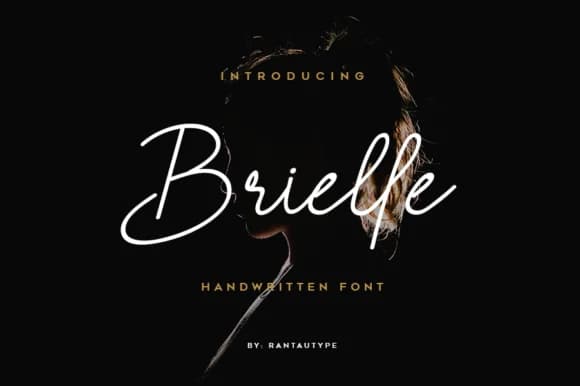
Brielle, designed by RantauType, is a contemporary script typeface that captures an energetic, hand-drawn quality through flowing letterforms rendered with confident boldness and distinctive personality. The letters connect with casual flair and natural movement, creating an approachable aesthetic that deliberately sidesteps the artificial precision found in traditional formal scripts.
This font excels across projects that genuinely need warmth and visual personality to feel authentic and inviting. Wedding invitation suites benefit from Brielle's spirited letterforms and human touch, while wine bottle labels and craft beverage branding gain instant authenticity from the hand-lettered quality visible in every letterform. Greeting card designs feel at home with this typeface, as do boutique product packaging projects for candles, artisan skincare, or small-batch goods where approachability genuinely matters. Social media graphics and brand identity applications also suit it, particularly when you want to capture attention with distinctive character without feeling overwrought or heavy-handed.
For independent brands, artisan-focused businesses, and creative projects where authentic humanness matters more than sterile professionalism, Brielle is a solid foundational choice. The bold stroke weight stays readable across different sizes, making it flexible for display work, secondary headings, body copy, and more depending on your layout. Find it on Creative Fabrica to get started.
Brielle Font is a script font that shines as a display or heading face. Pair it with a clean sans-serif or serif font for body text β the contrast creates a clear hierarchy while the two styles stay balanced and easy to read.